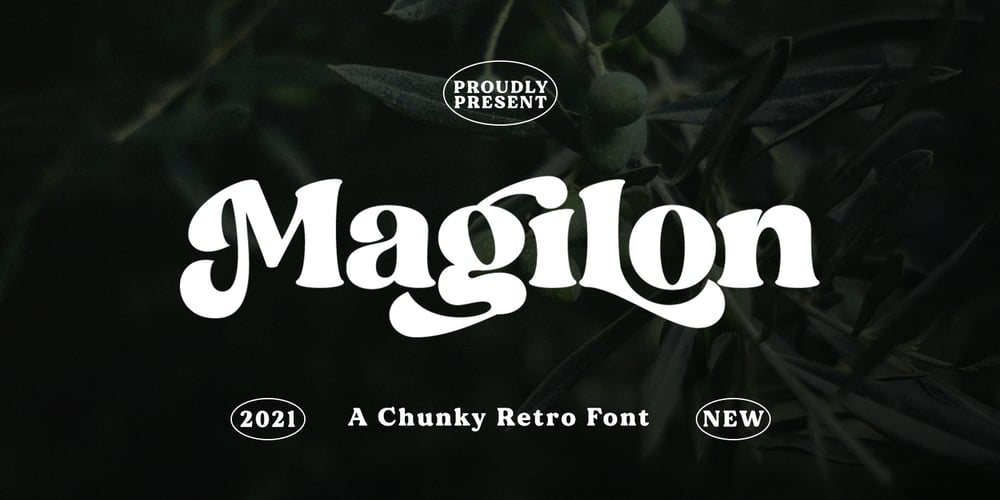
Magilon Display Font Family was designed by Jumm ati and published by Masa Type. Magilon Display contains 1 styles and family package options. introducing our new “Magilon” Modern Retro with Fun and Elegant Style is perfect for branding, logos, invitation, master heads, and more.Magilon Features :MultilanguageAlternatesPUA EncodedLigaturesVery easy to use in any software (Instructions included)